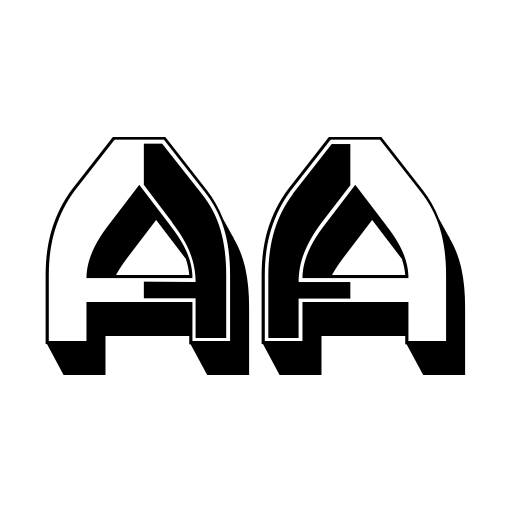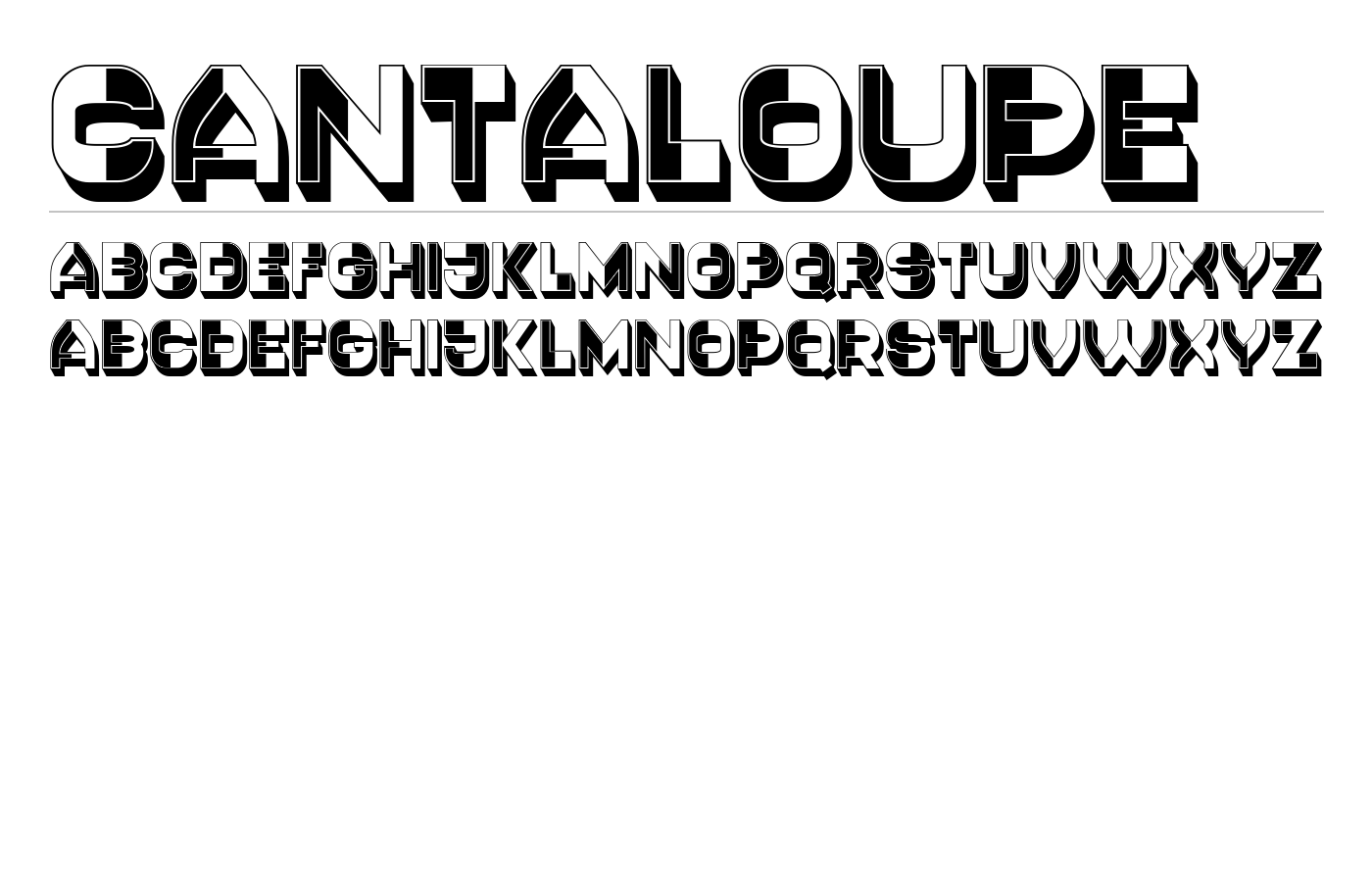
Cantaloupe is a bold, geometric sans serif font with a striking 3D shadow effect that adds depth and personality. Its uppercase letterforms feature sharp angles and wide proportions, creating a strong, playful, and modern vibe perfect for attention-grabbing headlines, branding, and display use. This font works well where a dynamic, retro-futuristic look is desired to make a memorable visual impact.
Cantaloupe Font
About Cantaloupe Font